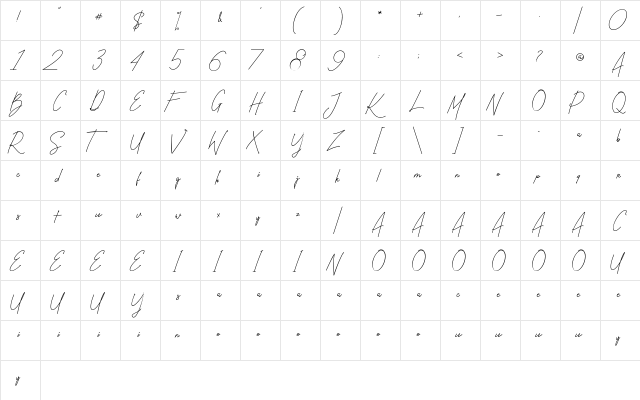
Ballistick Demo Regular
| Designer | Sigit Dwipa |
Design Context for Ballistick Demo Typeface
Ballistick Demo is a composed and adaptable typeface that performs quietly and consistently across a wide range of design contexts.